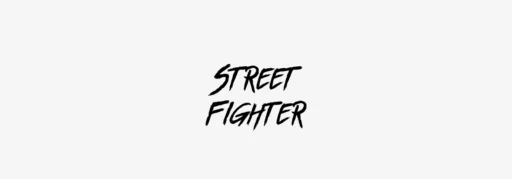
Street Fighter Font
Street Fighter Font captures the bold and dynamic style of the famous video game logo. Its sharp edges and powerful curves reflect the energy and excitement of arcade fighting games. Designers use this font for posters, gaming artwork, logos, and projects that need a strong, action-packed look. Street Fighter Font adds intensity and motion to any design.
Street Fighter Font is a Display Fonts font that brings a professional and versatile look to your projects. Street Fighter Font captures the bold and dynamic style of the famous video game logo.